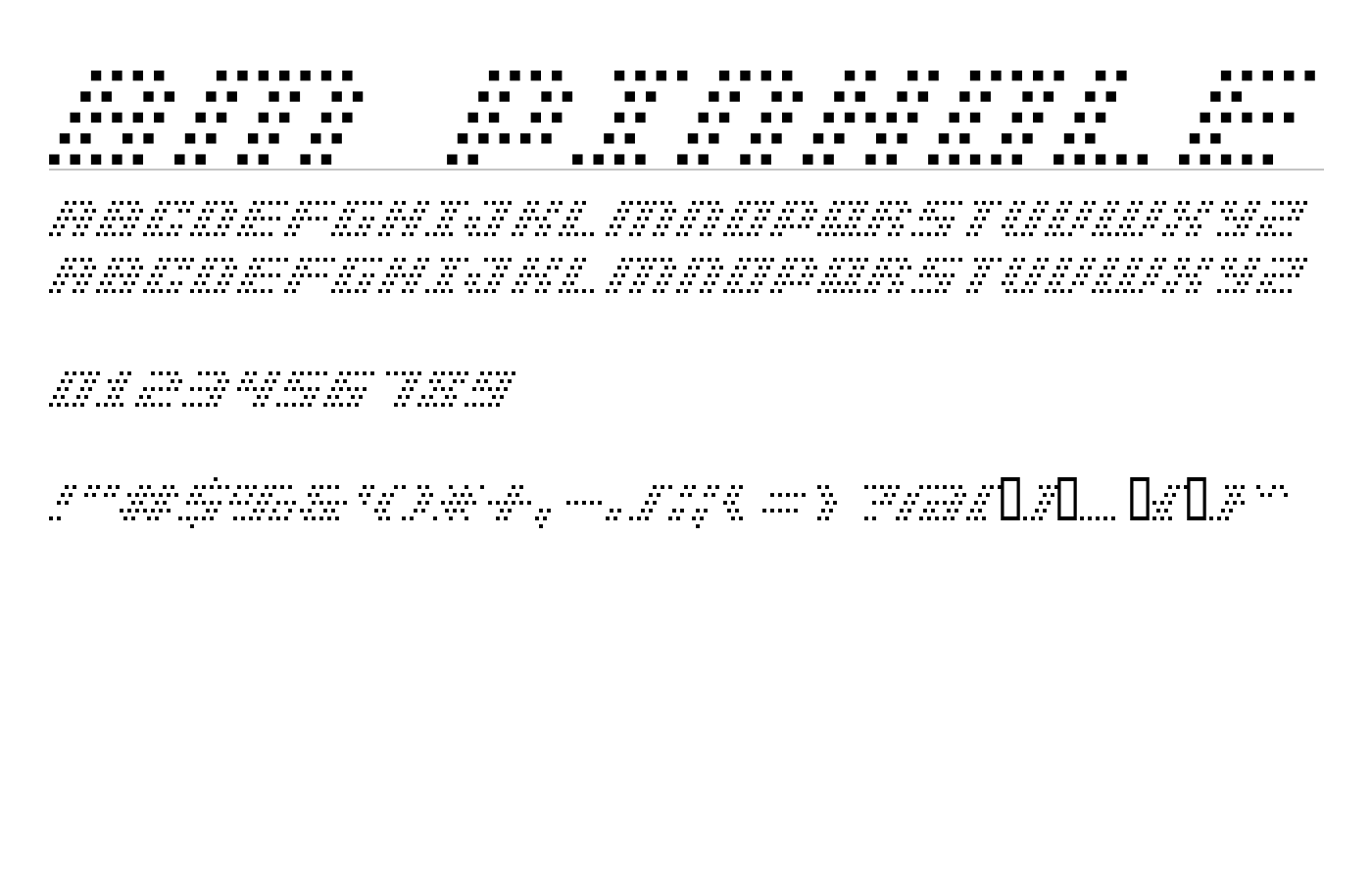
BM Pinhole is a distinctive monospaced sans serif font designed with a futuristic, digital aesthetic. Its characters are formed entirely from small square dots, creating a pixelated, grid-like appearance that evokes technology and retro computer displays. This font works well for tech branding, digital media, or creative projects where a modern, experimental vibe is desired, especially in headlines or signage where its unique dot matrix style can stand out.
BM pinhole Font
About BM pinhole Font